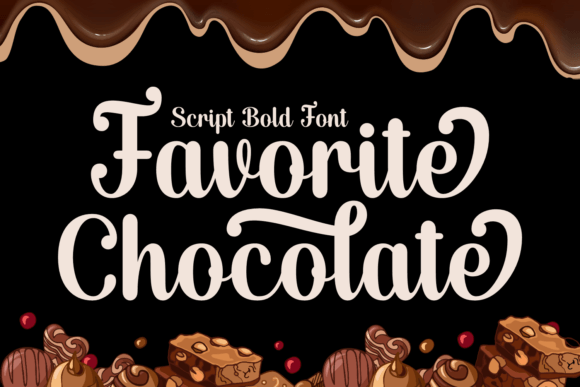
Introducing Favorite Chocolate: The Ultimate Handwritten Font for Stunning Headlines and Logotypes
Are you tired of using the same old fonts for your design projects? Look no further! Favorite Chocolate is a gorgeous and bold handwritten font that can add a stylish touch to your headlines and logotype projects. This font is crafted to read as strong, confident, and dynamic, making it perfect for designers who want to create a lasting impression.
The Story Behind Favorite Chocolate
Favorite Chocolate is more than just a font – it’s a statement piece. Its bold and confident design makes it perfect for headlines, logotypes, and any other project where you want to make a statement. The font’s handwritten style gives it a personal touch, making it feel more approachable and nostalgic. Whether you’re designing a logo, a poster, or a website, Favorite Chocolate is sure to add a touch of personality to your work.
What Makes Favorite Chocolate So Special?
So, what sets Favorite Chocolate apart from other fonts? Here are a few things that make it truly special:
- Bold and Confident Design: Favorite Chocolate is a bold and confident font that demands attention. Its thick lines and dramatic curves make it perfect for headlines and logotypes.
- Handwritten Style: The font’s handwritten style gives it a personal touch, making it feel more approachable and nostalgic.
- Dynamic and Versatile: Favorite Chocolate is a dynamic and versatile font that can be used for a wide range of projects, from logos and posters to websites and social media graphics.
How to Use Favorite Chocolate in Your Design Projects
Using Favorite Chocolate in your design projects is easy! Here are a few tips to get you started:
- Use it for Headlines: Favorite Chocolate is perfect for headlines, where its bold and confident design can really make an impact.
- Pair it with Other Fonts: Favorite Chocolate can be paired with other fonts to create a unique and interesting contrast. Try pairing it with a clean sans-serif font for a bold and modern look.
- Experiment with Colors: Favorite Chocolate looks great in a wide range of colors, from bold and bright to muted and pastel. Experiment with different colors to find the perfect look for your project.
The Benefits of Using Favorite Chocolate
There are many benefits to using Favorite Chocolate in your design projects. Here are a few:
- Adds Personality to Your Designs: Favorite Chocolate is a font that adds personality to your designs. Its handwritten style and bold design make it perfect for designers who want to create a lasting impression.
- Perfect for Logotypes and Headlines: Favorite Chocolate is perfect for logotypes and headlines, where its bold and confident design can really make an impact.
- Easy to Read: Despite its bold design, Favorite Chocolate is easy to read, even at small sizes.
Who is Favorite Chocolate Suitable For?
Favorite Chocolate is suitable for a wide range of designers and projects. Here are a few examples:
- Graphic Designers: Graphic designers who want to add a touch of personality to their designs will love Favorite Chocolate.
- Branding Experts: Branding experts who want to create a bold and confident brand identity will appreciate Favorite Chocolate’s unique design.
- Web Designers: Web designers who want to add a touch of personality to their websites will love Favorite Chocolate’s versatility and ease of use.
In conclusion, Favorite Chocolate is a gorgeous and bold handwritten font that can add a stylish touch to your headlines and logotype projects. Its bold and confident design makes it perfect for designers who want to create a lasting impression. With its handwritten style, dynamic and versatile design, and ease of use, Favorite Chocolate is a font that is sure to become a favorite in your design arsenal.